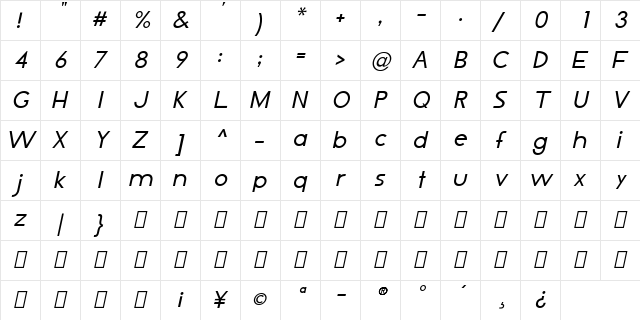
LJ Design Studios IS Italic
Design Context for LJ Design Studios IS Typeface
LJ Design Studios IS is a composed and adaptable typeface that performs quietly and consistently across a wide range of design contexts. Its italic angle brings a sense of urgency and motion to the letterforms.
Pro Tip: Try LJ Design Studios IS for annotation and caption copy alongside an upright companion — the contrast in angle creates a dynamic but ordered typographic system.